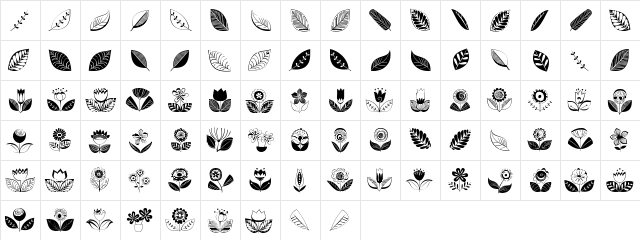
DoodleDings 2 RetroFlowers Regular
Design Context for DoodleDings 2 RetroFlowers Typeface
DoodleDings 2 RetroFlowers has the warm character of retro typography — evoking diners, record sleeves, and the golden age of print advertising.
Font Pairing: Combine DoodleDings 2 RetroFlowers with a simple slab or neutral sans — period-accurate companions reinforce the vintage feel without competing for attention.
Pro Tip: Lean into DoodleDings 2 RetroFlowers's period character by pairing it with aged paper textures, muted colour palettes, and vintage illustration styles.